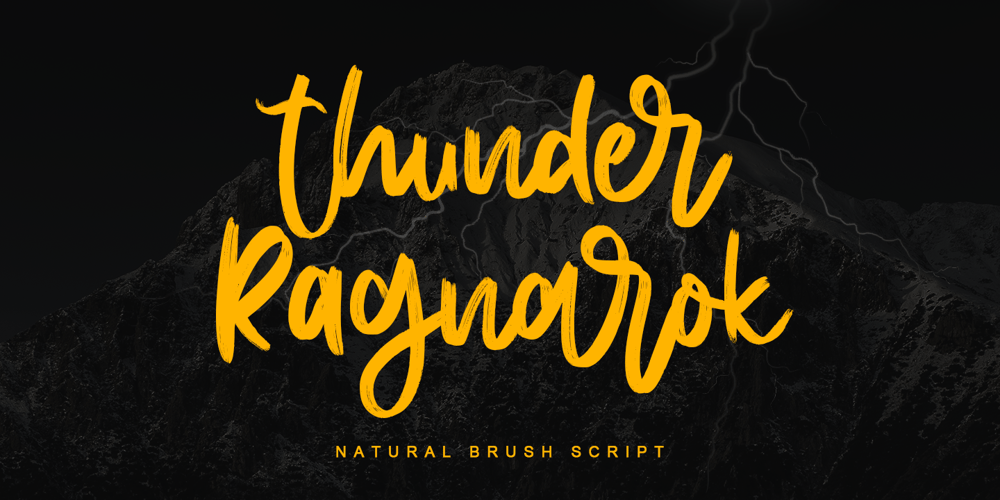
Thunder Ragnarok
Thunder Ragnarok font
Thunder Ragnarok Font Family was designed by Thomas Aradea and published by Letterara. Thunder Ragnarok contains 1 styles and family package options. Thunder Ragnarok is a stylish modern brush script. It has an unique, striking look which can be used to make any design stand out. It’s perfect for logos, fashion designs,stationary, quotes, and much more!. This font is PUA encoded which means you can access all of the glyphs.